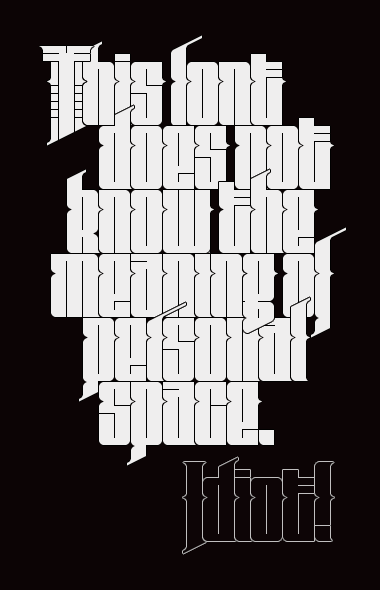
Awesome!!! :)
Inspirational!
Total war on white spaces. This is a fantastic and inspiring work, with lots of small innovations. There are a few kinks to iron out, and I'm sure you are aware of them. Keep up the good work. 10/10
Wow, it's a impressive font. I love it – especially the little spikes : )
Congratulations! FontStruct Staff have deemed your FontStruction worthy of special mention. “fs Oh!” is now a Top Pick.
Great, love the horizontal fillers.
One of the best fonts i have ever seen
Masterpiece once again. My type of font. For some weird reason it reminds me of The Godfather film.
Holy cow! a perfect kerning.
great design
I absolutely love it
This is a font that we can write everything and it will looks good!
I love this font. Great job! & Thanks!
On the preview image it is hard to read... but when I download it... Perfecto. ?